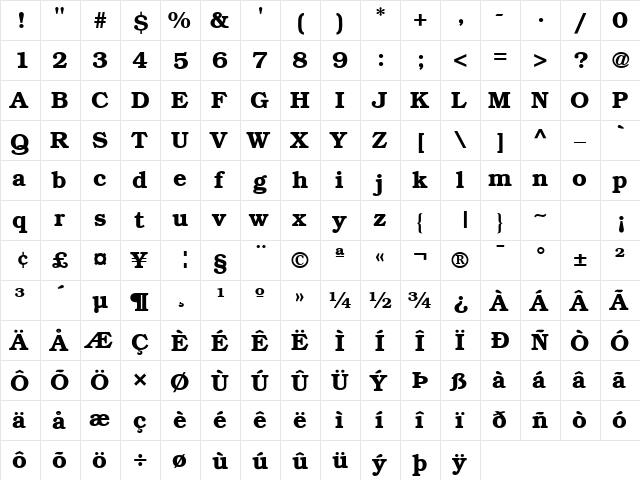
BookwomanSH Demi
Design Context for BookwomanSH Typeface
BookwomanSH takes a measured approach to typography — its balanced proportions and neutral character make it a reliable workhorse for both digital and print work.